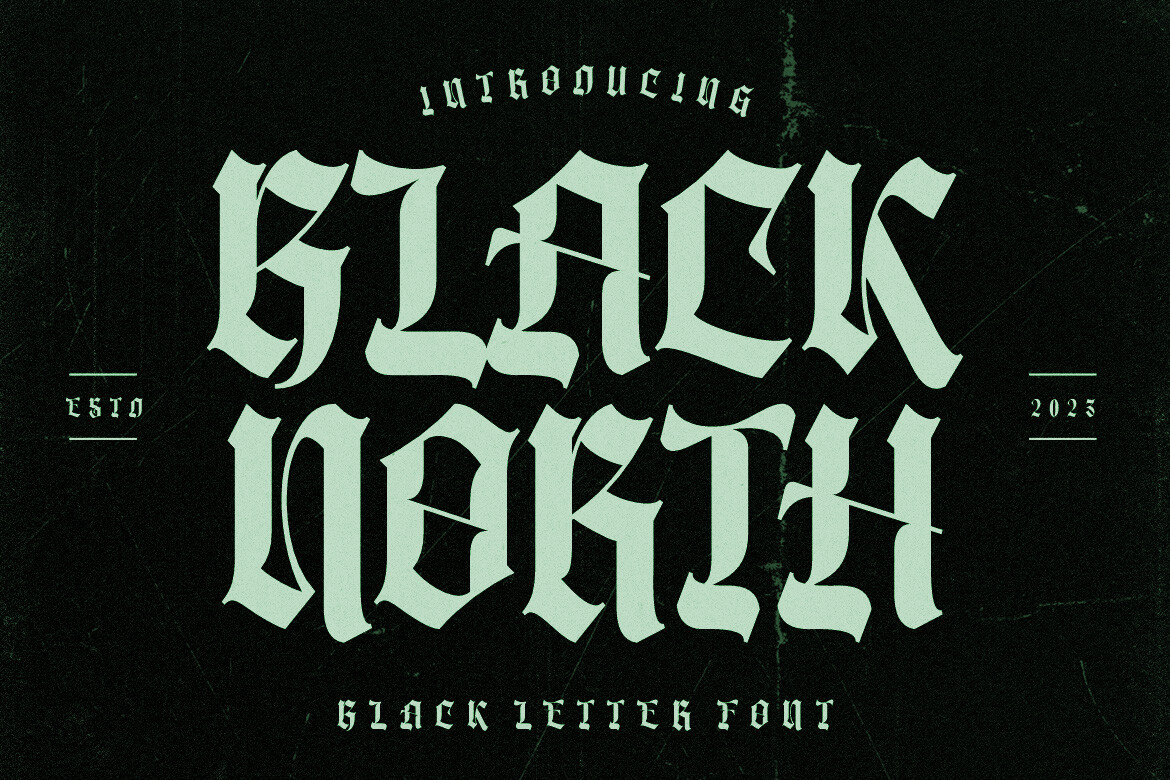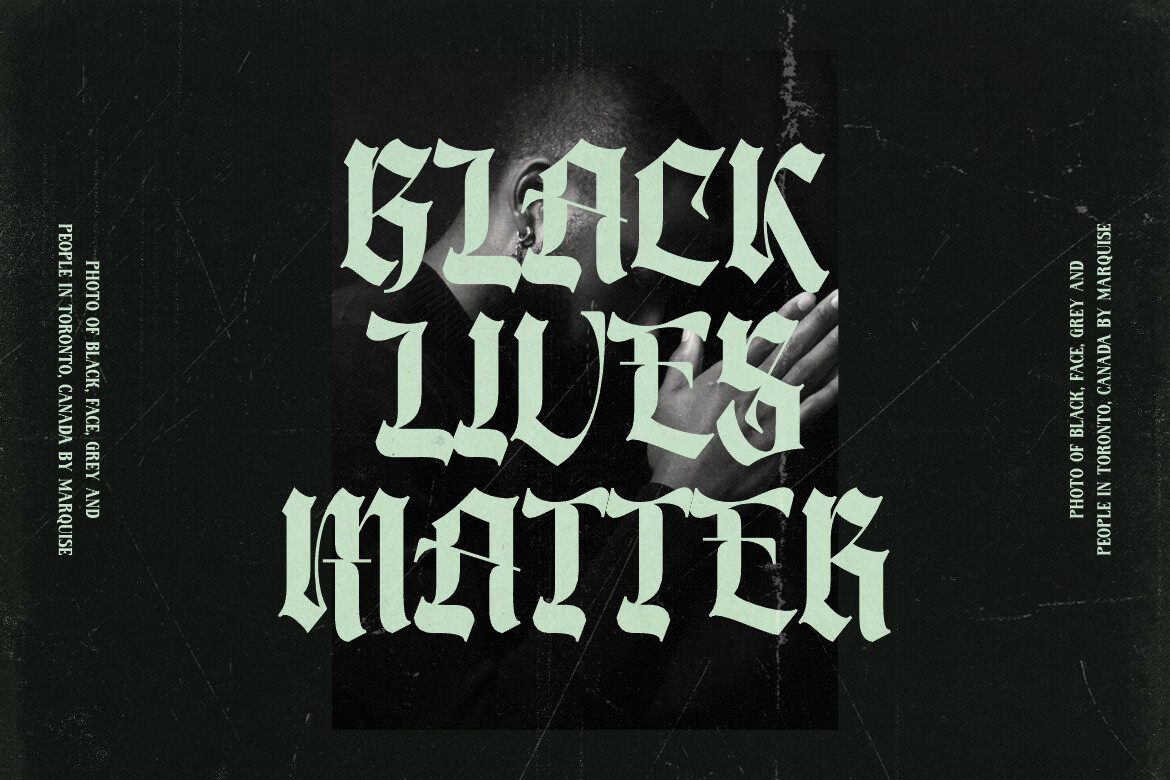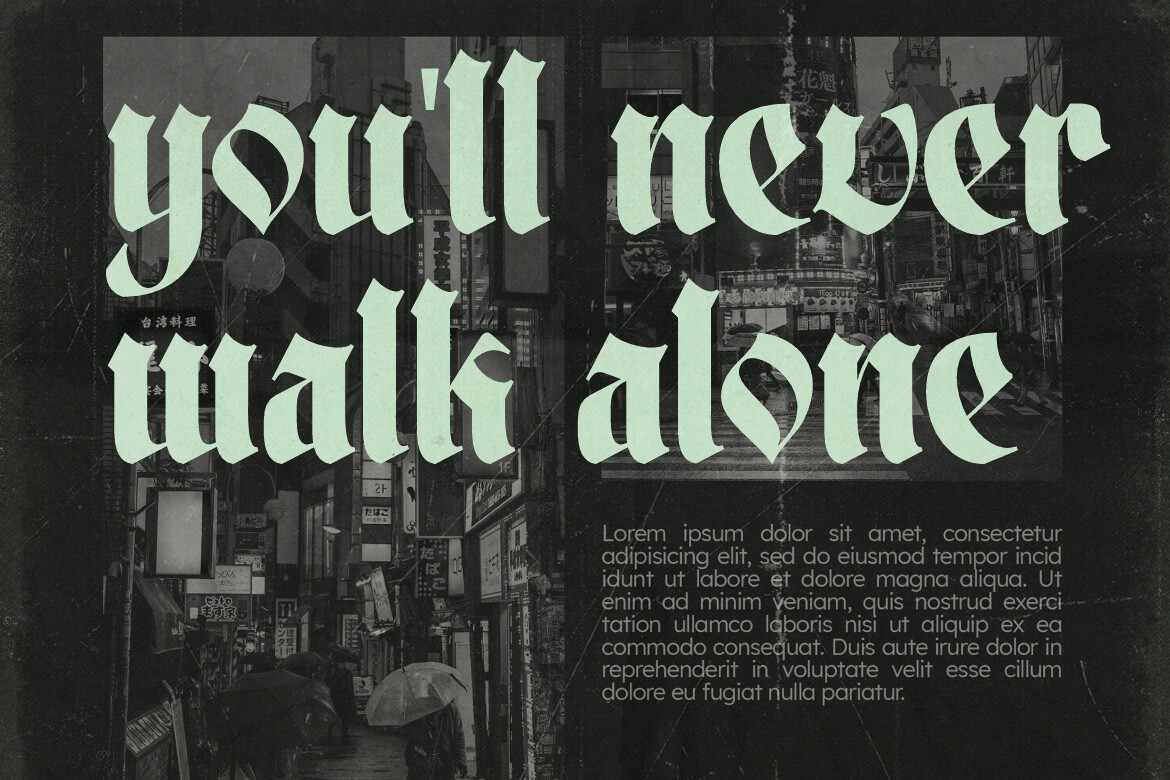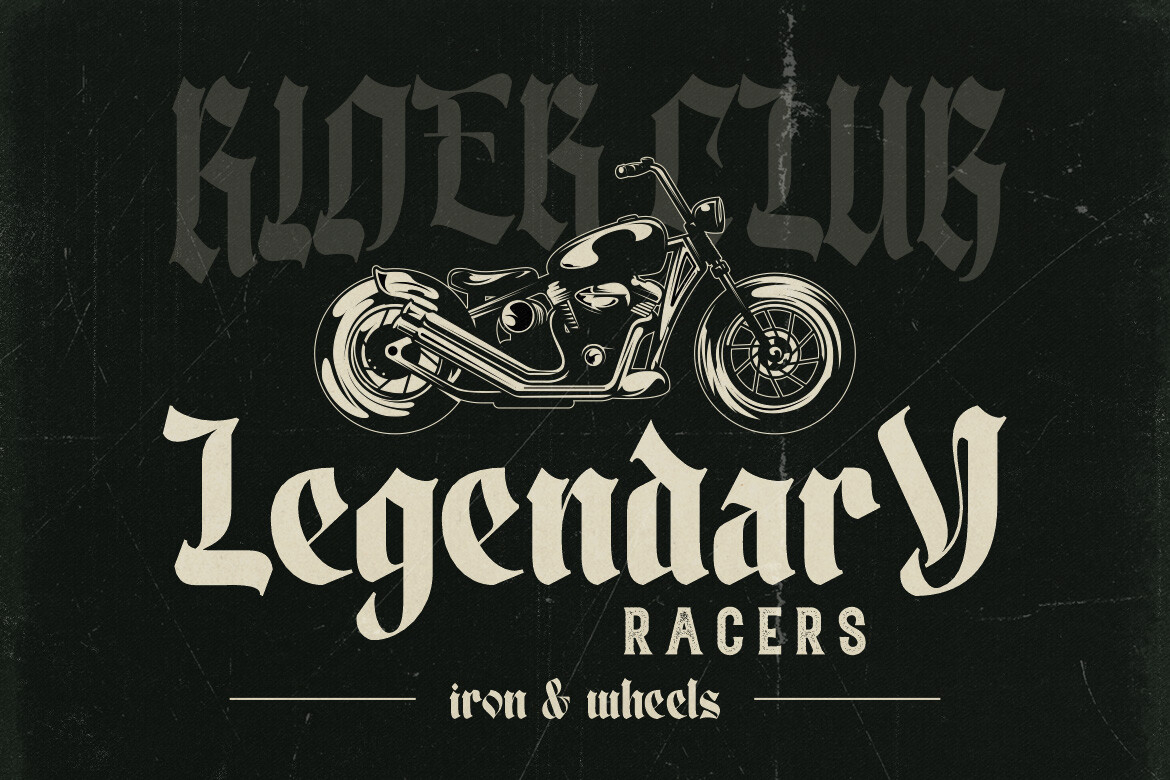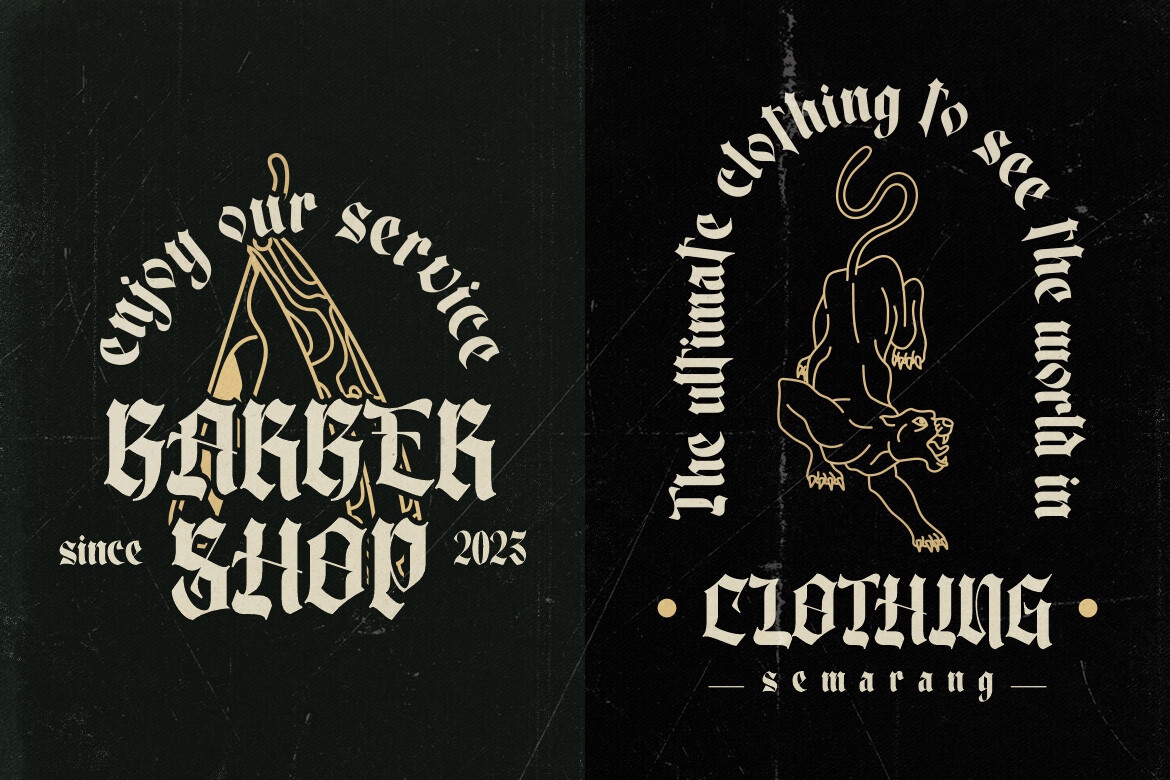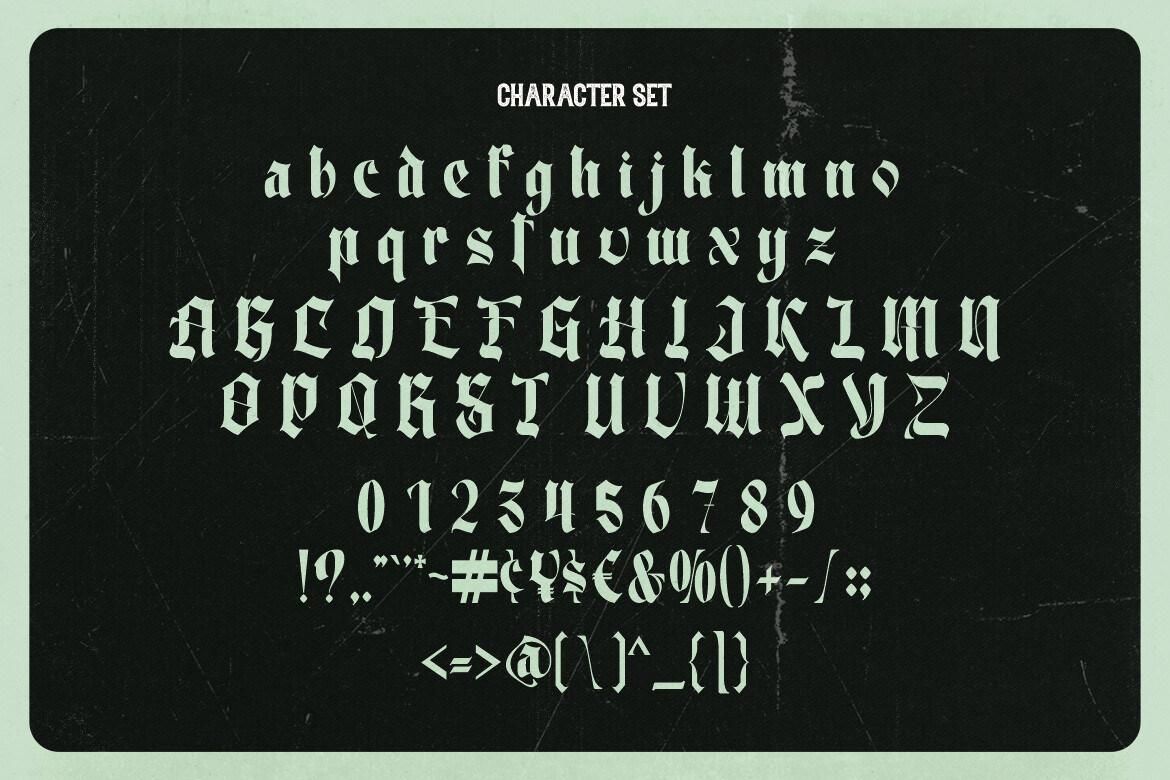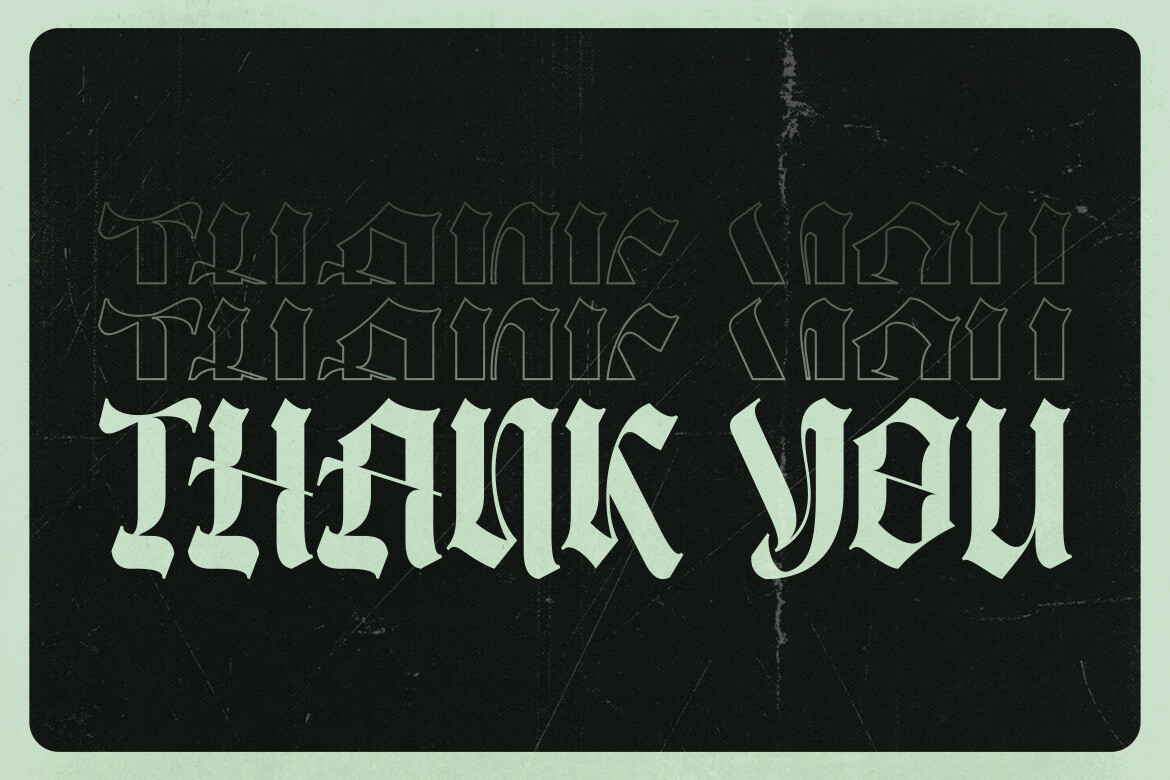
Black North Font
About Black North Font
Black North Font is a modern and casual display font with an incredibly friendly feel. This font comes with a blackletter feel but has a clean and modern style. Comes with a full uppercase, lowercase, numbers, punctuation and with extensive language support, it’s going to be a very usable addition to your project. Whether you’re looking for fonts for various projects like logos, blog titles, branding, packaging, barber shop, fashion, invitations, greeting cards, posters, business cards, clothing, letters, stationery, and more Black North Font will turn any creative idea into a true piece of art!